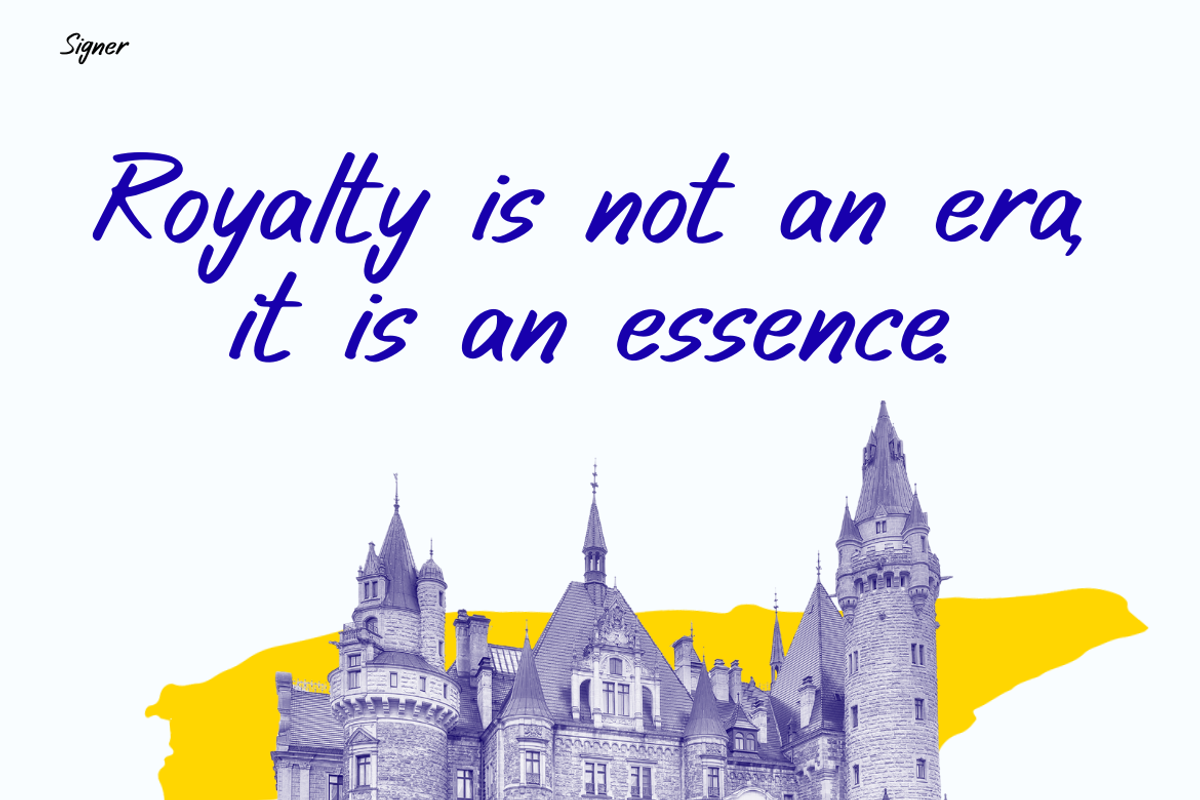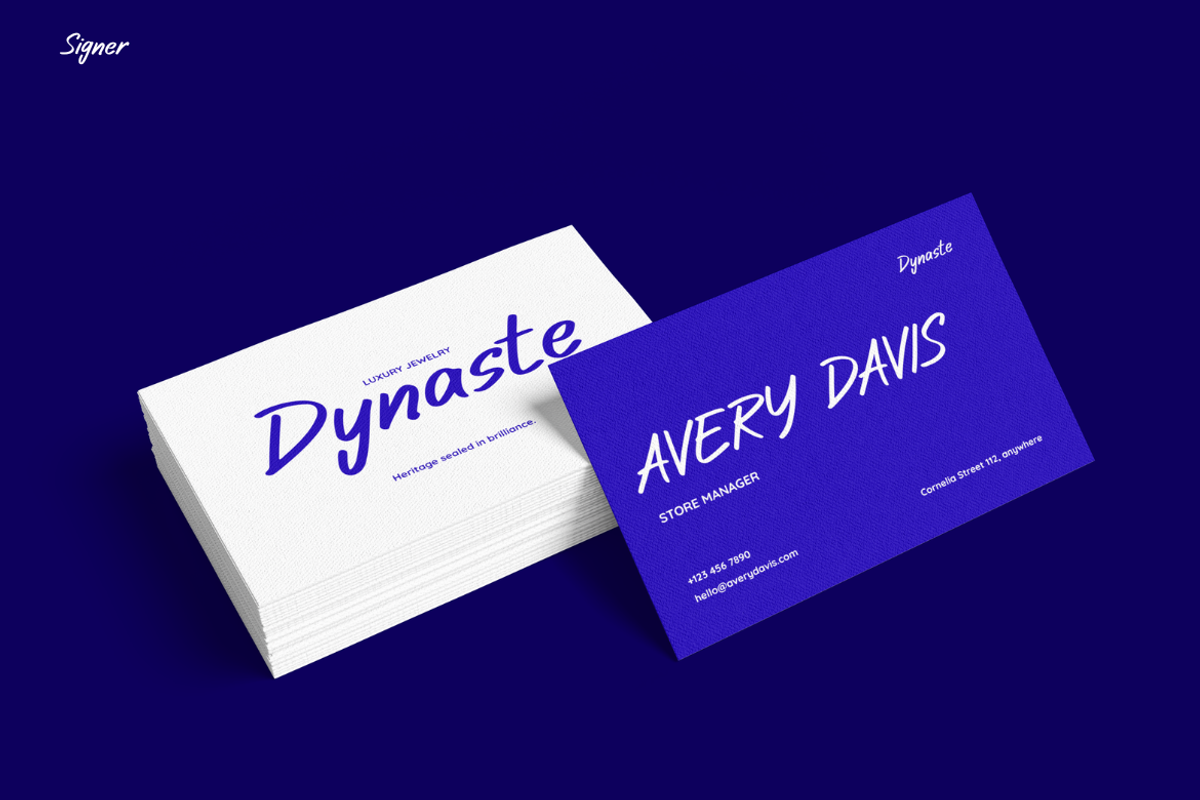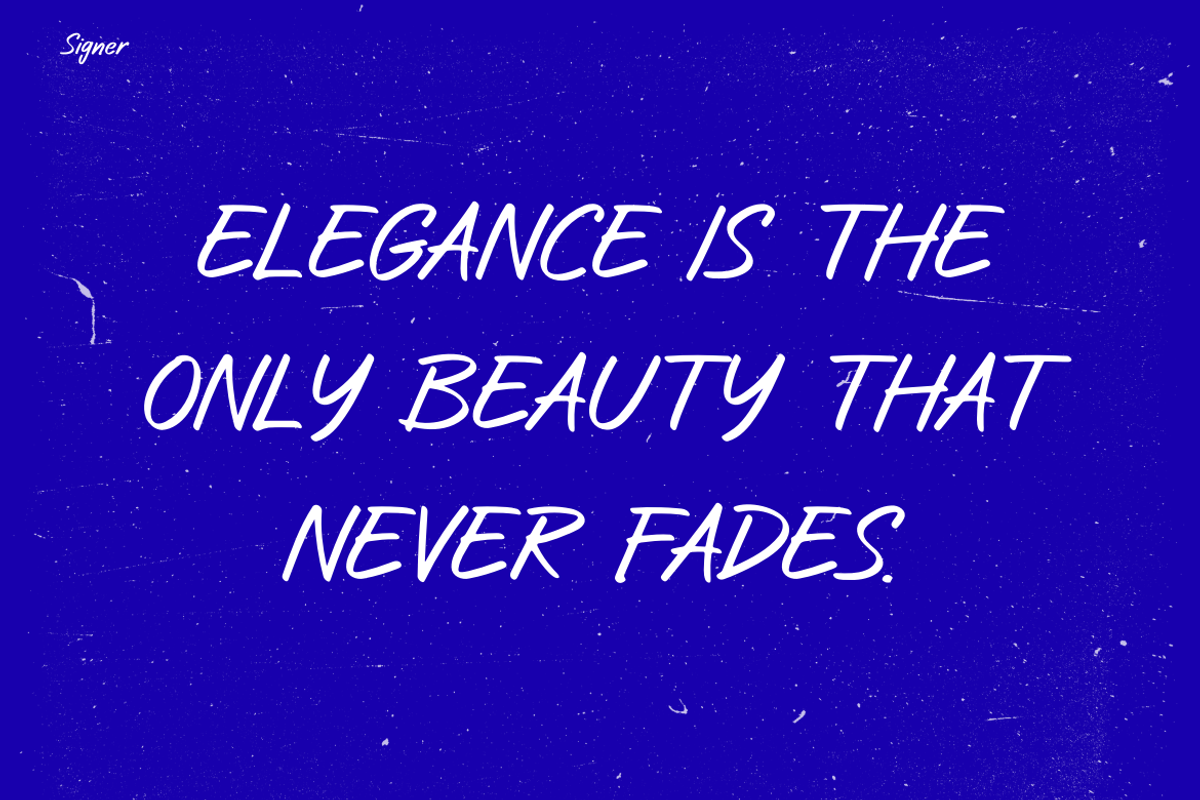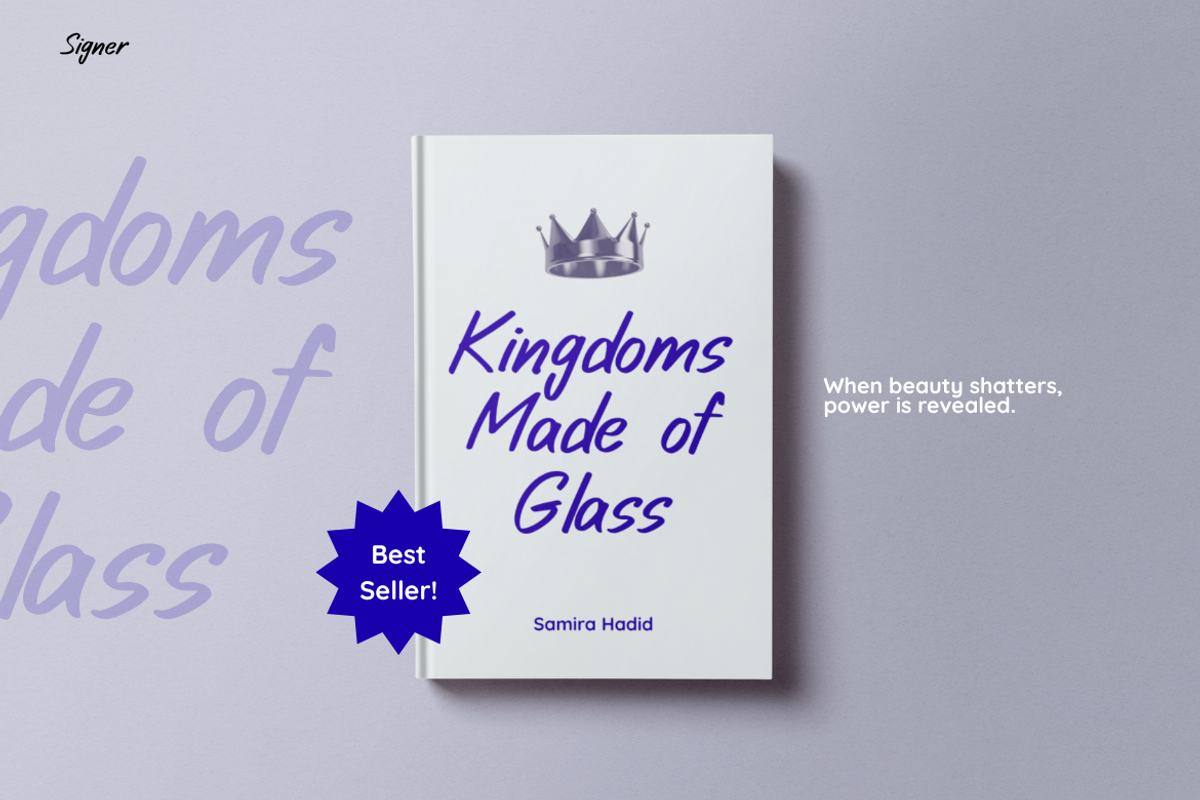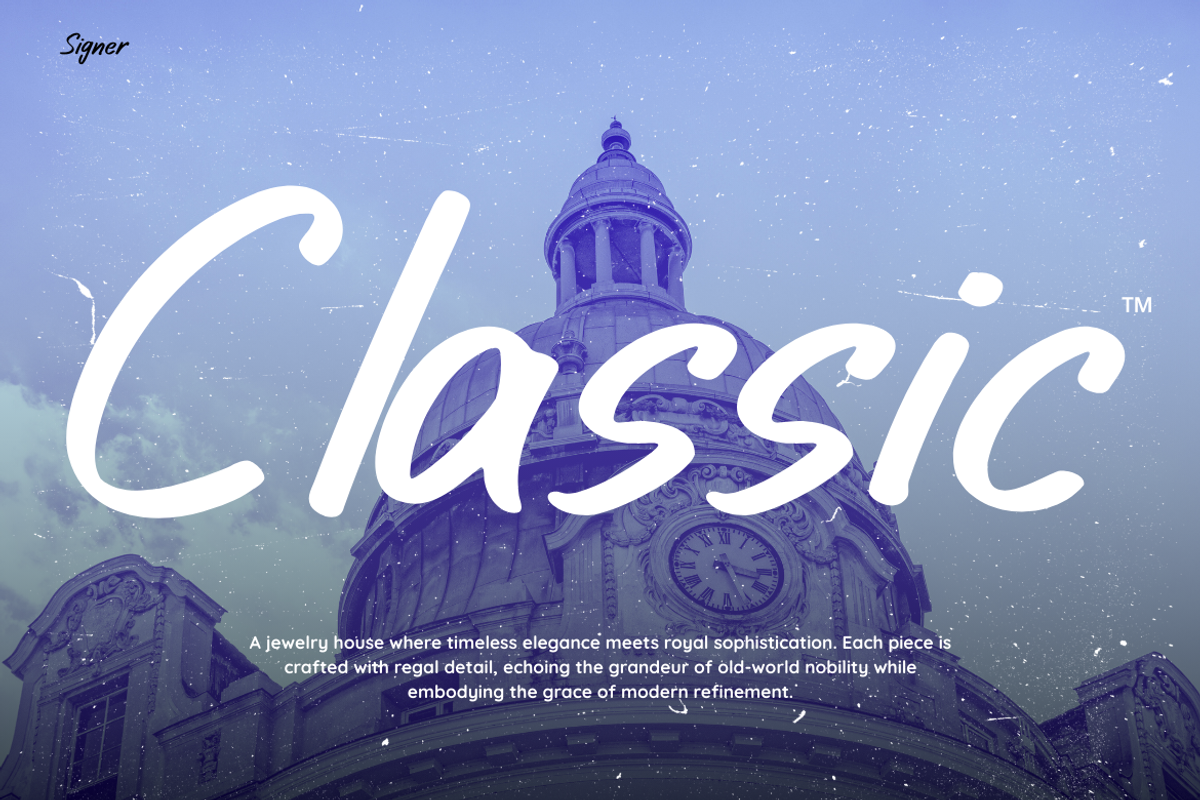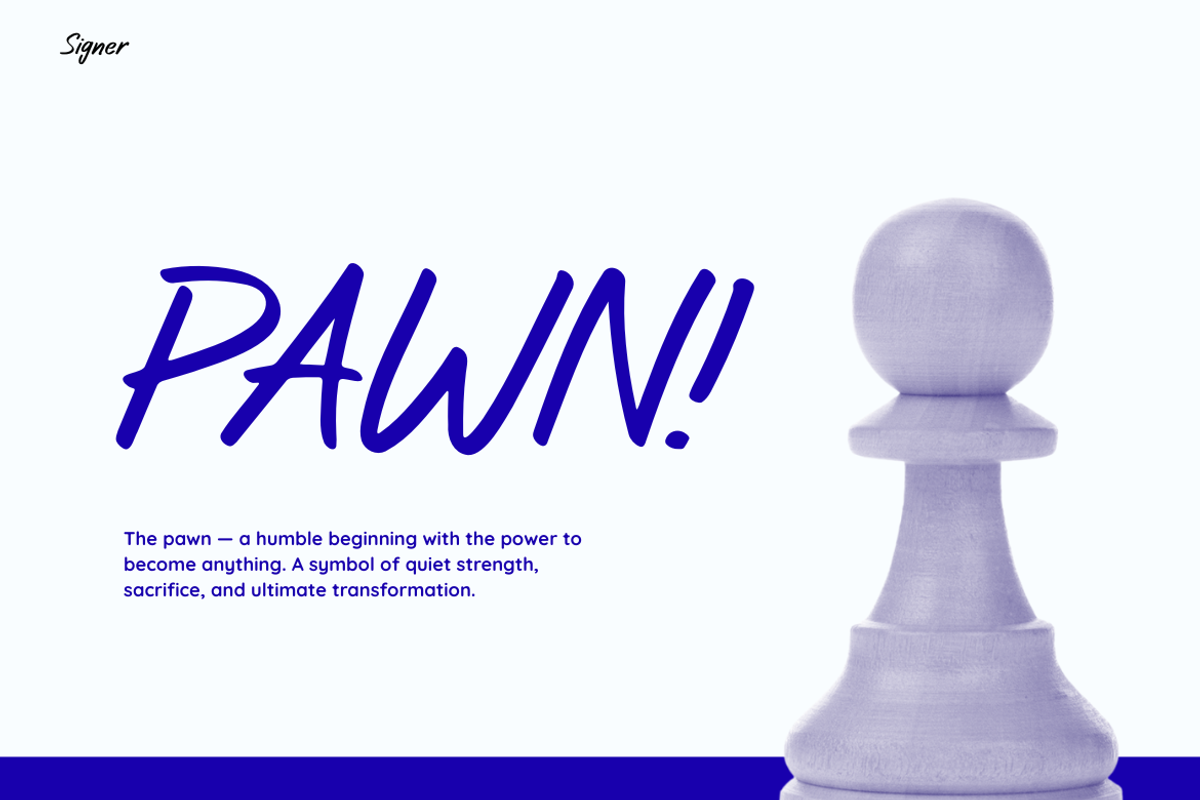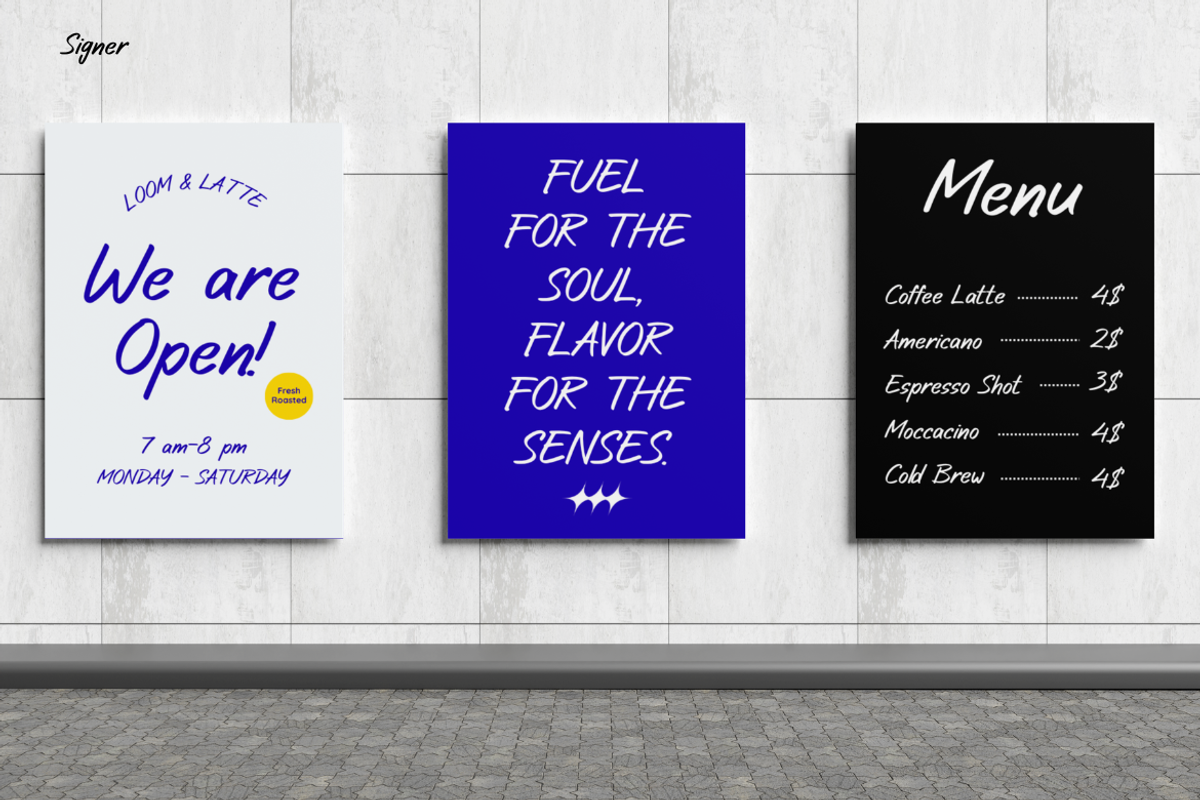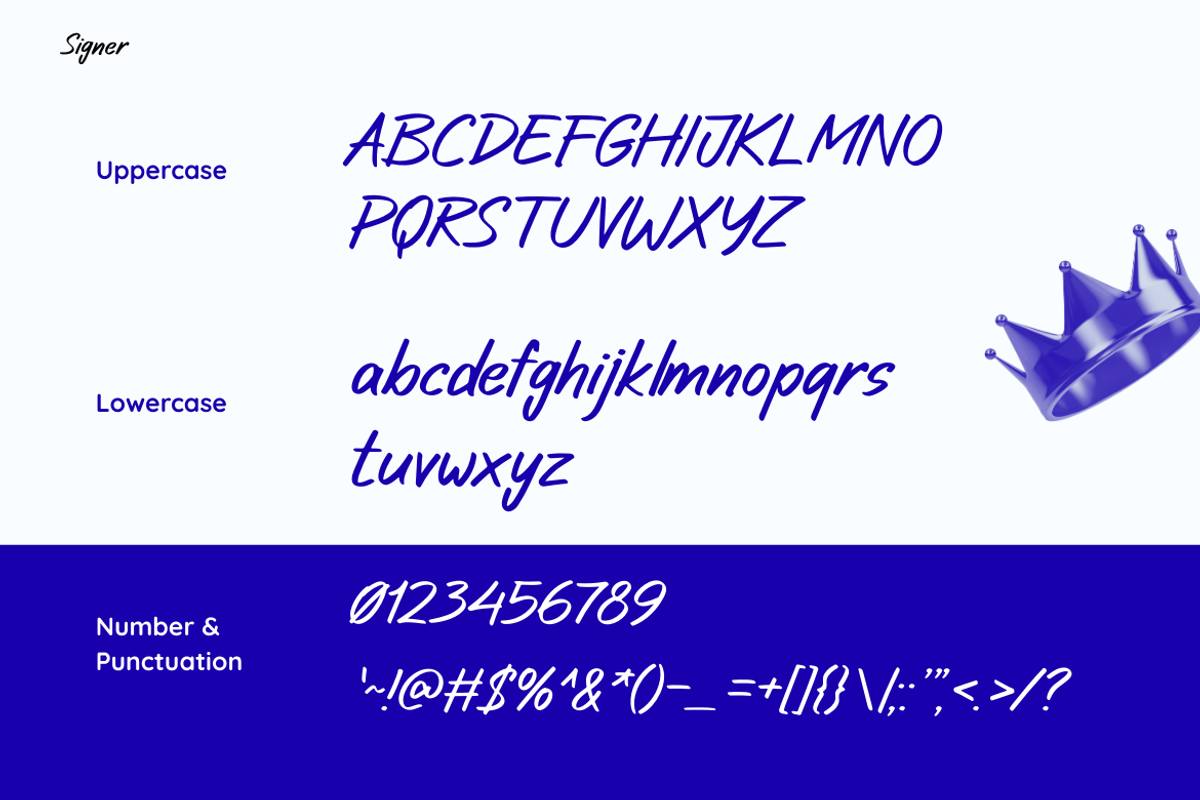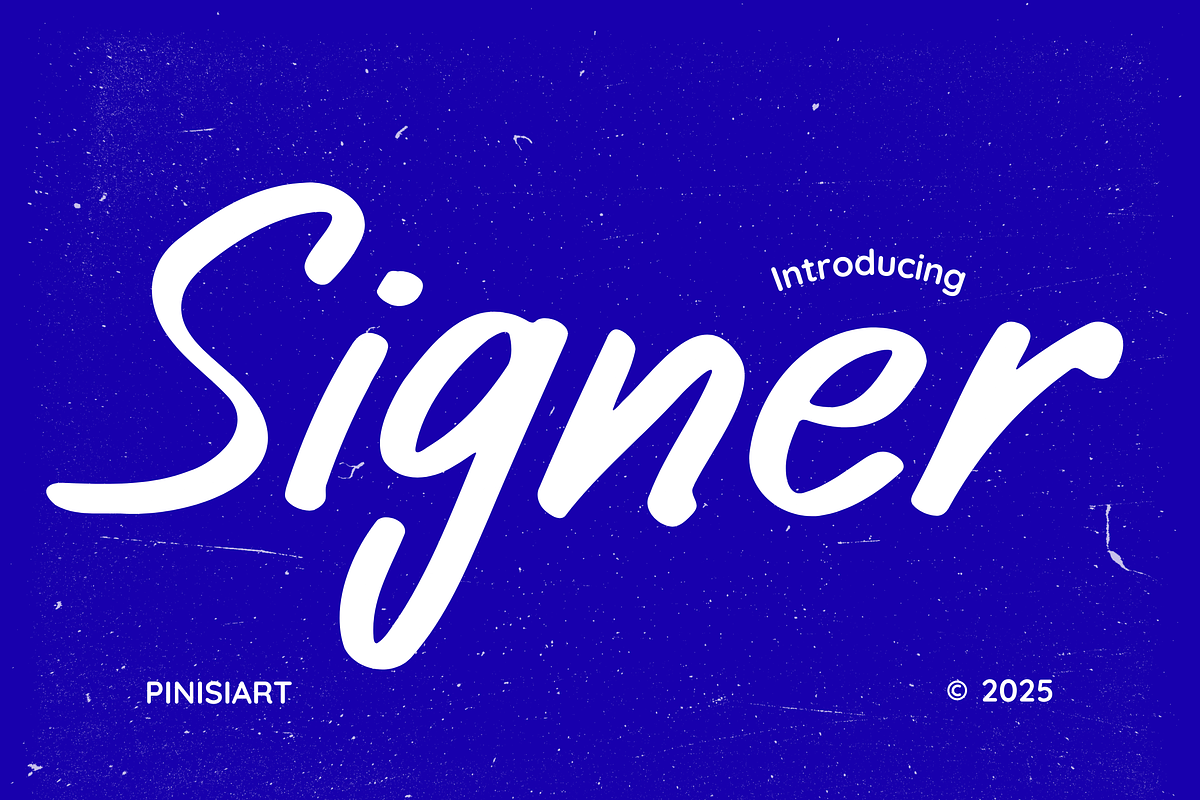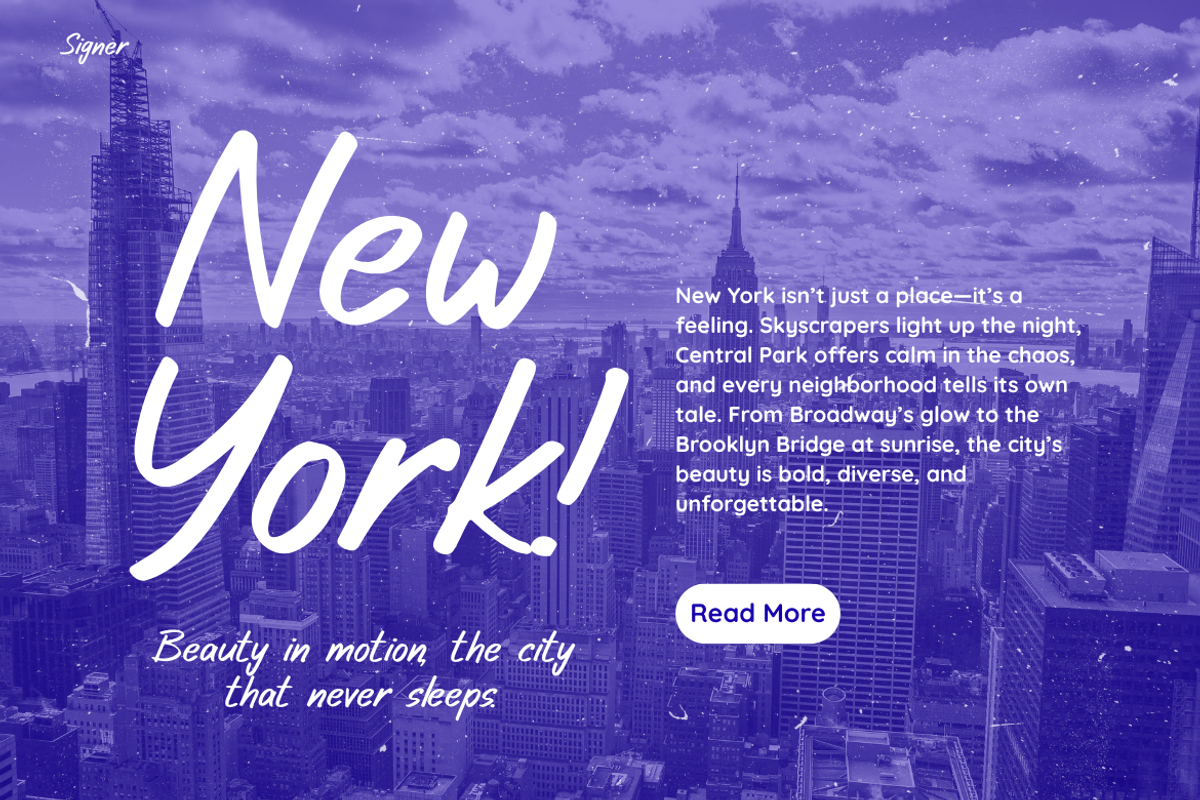
Signer
Handwriting Font Signer – Elegant Script with Timeless Charm
Handwriting Font Signer is more than just another script typeface. Instead, it is a modern handwriting font that adds style, elegance, and authenticity to your projects. Its smooth strokes and natural flow make every word look personal, yet refined.
Moreover, this font stands out because it balances casual handwriting aesthetics with professional design use. As a result, it feels natural and creative while staying clear and easy to read. On posters, invitations, logos, or digital content, Handwriting Font Signer always delivers originality.
In addition, the beauty of this font lies in its real handwriting feel. Each curve looks warm and engaging, while the consistent letterforms ensure professional results. Therefore, it makes your designs memorable and full of character. Even more, it adapts well to both minimalist and bold layouts, making it a versatile choice for different industries.